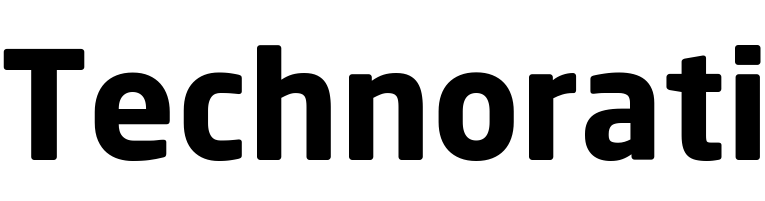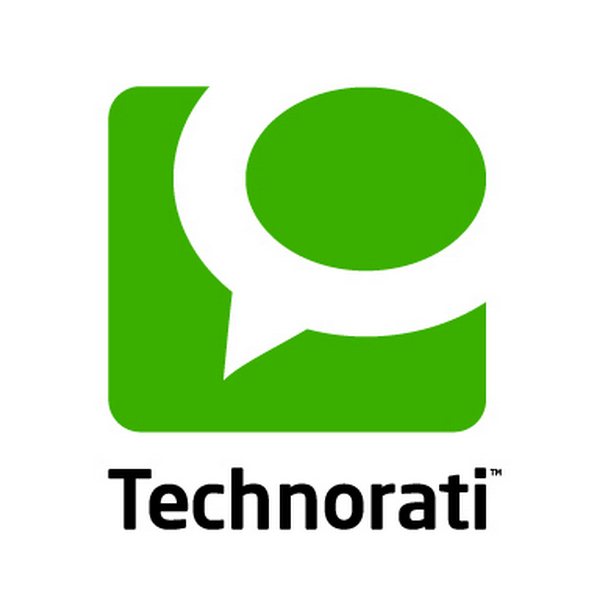
Technorati Font
Fonts in UseTechnorati was a search engine and indexing service for blogs and other user-generated content. It was founded in 2002 and was one of the most popular blog search engines in the mid-2000s.
Technorati's logo is a green speech bubble outlined in white, placed within a green rounded box. The logotype is situated underneath, which uses a font that resembles Neo Sans Bold font, designed by Sebastian Lester in 2004.